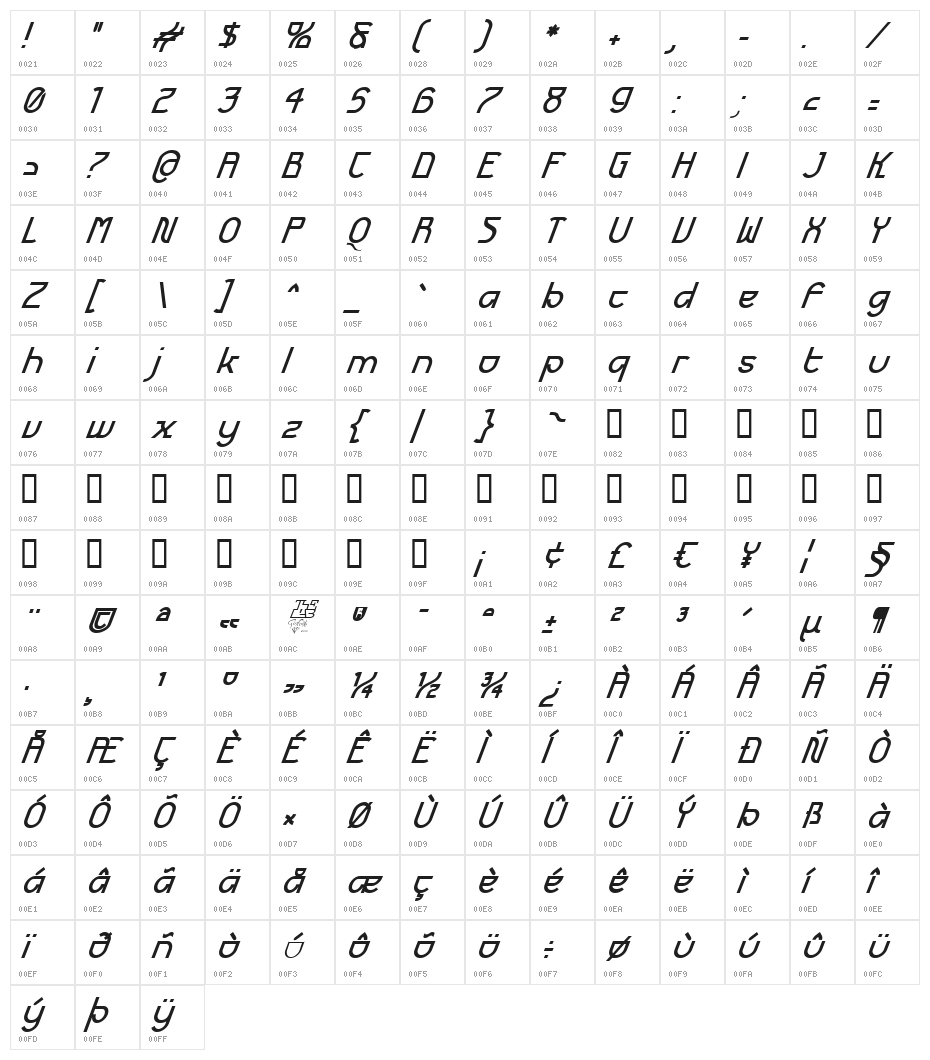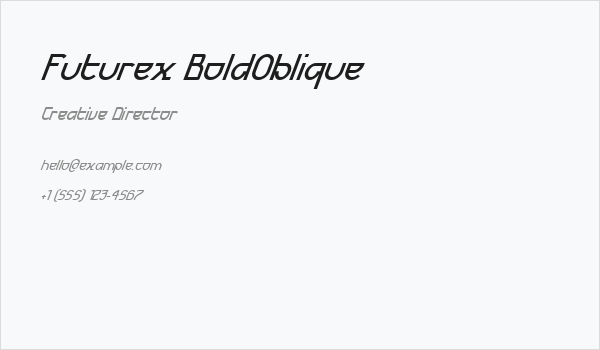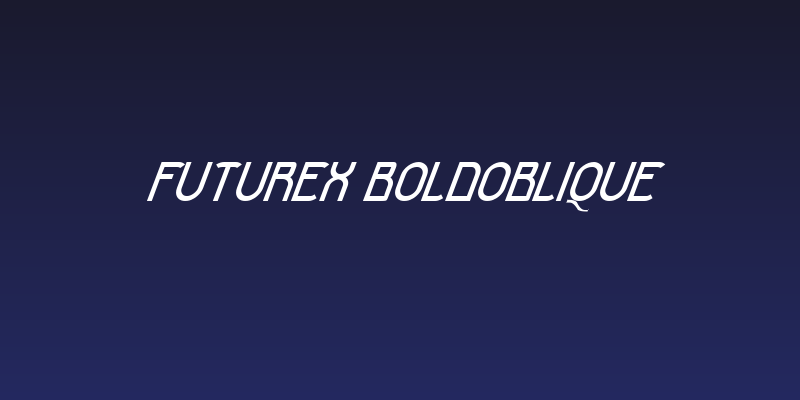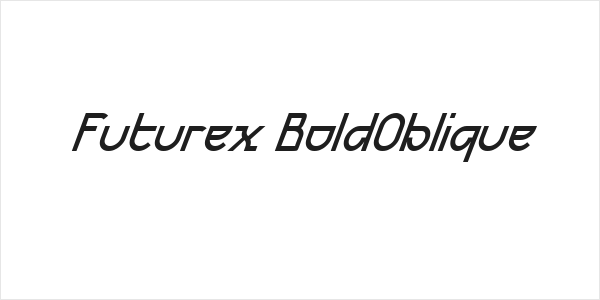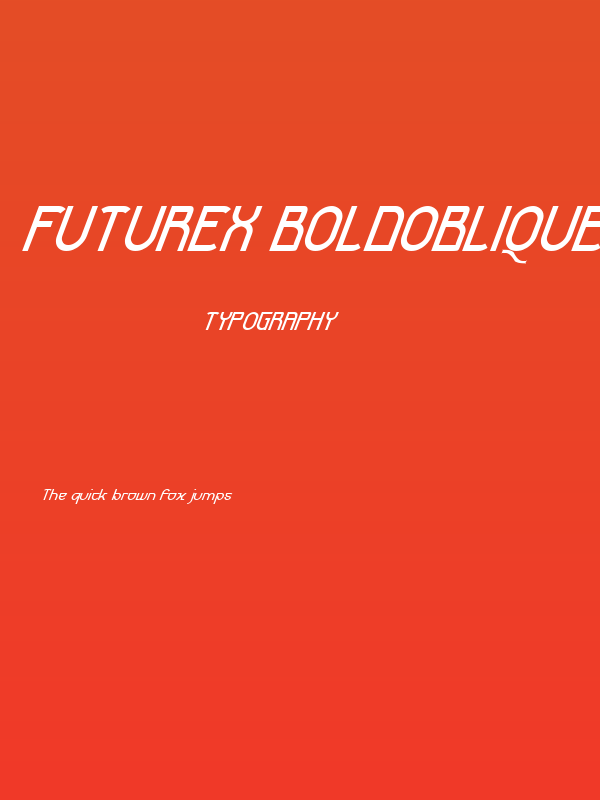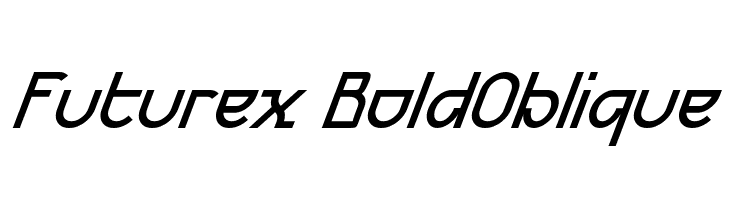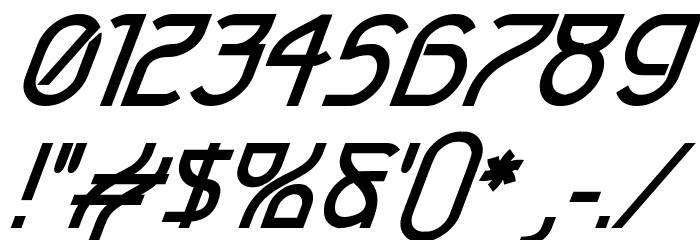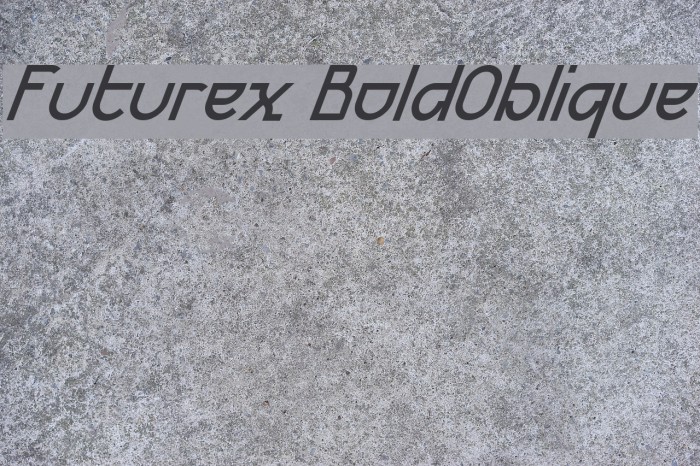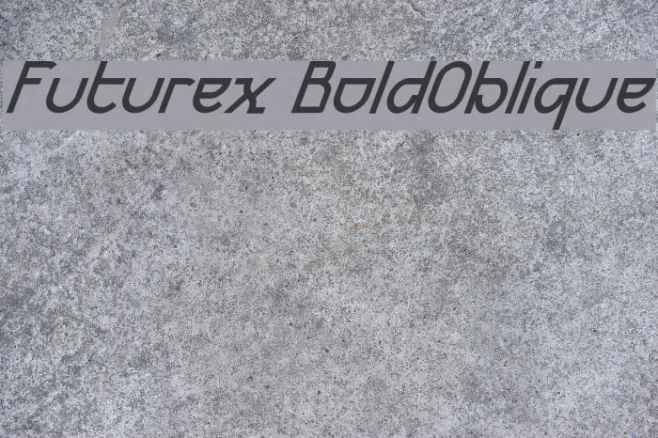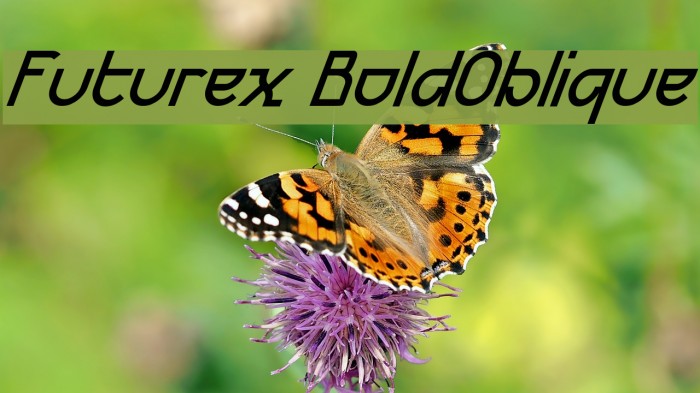
Futurex BoldOblique Font
Futurex BoldOblique Description
This font features a bold and oblique style, characterized by its strong, angular lines and dynamic slant. The uppercase letters are tall and narrow, giving a sense of urgency and movement. The lowercase letters maintain a consistent slant, complementing the uppercase with a slightly more rounded appearance. Numbers and special characters follow the same bold and slanted design, ensuring uniformity across all glyphs. The overall look is modern and futuristic, making it suitable for projects that require a sense of speed and innovation.
| Use Case | Logos, Headlines |
| Proposed Projects | Ideal for technology branding, sports team logos, and futuristic-themed posters. |